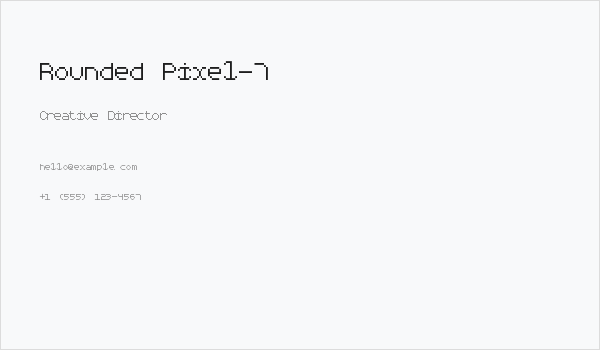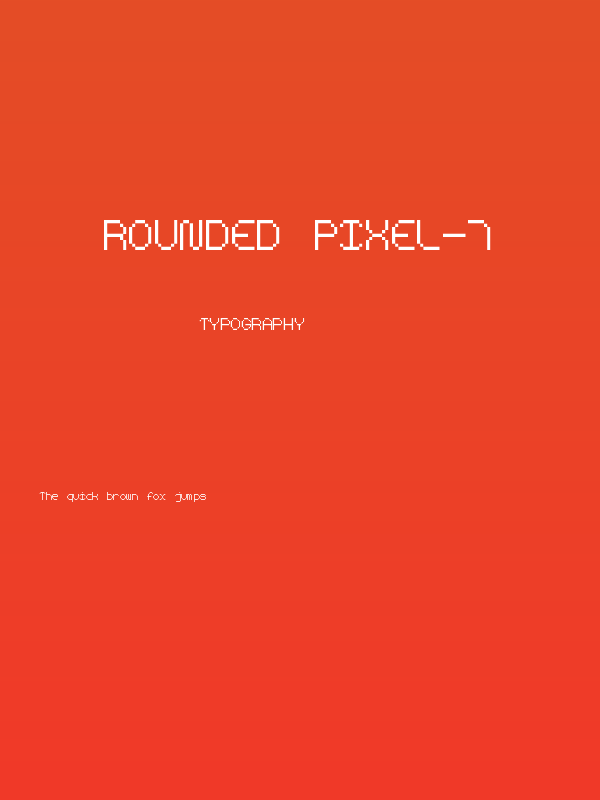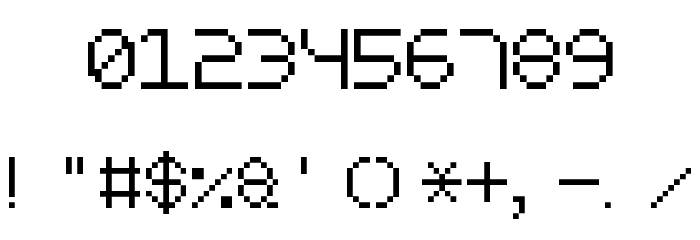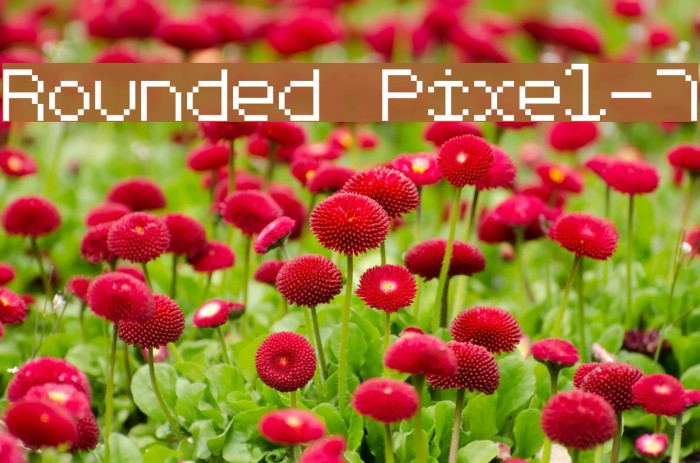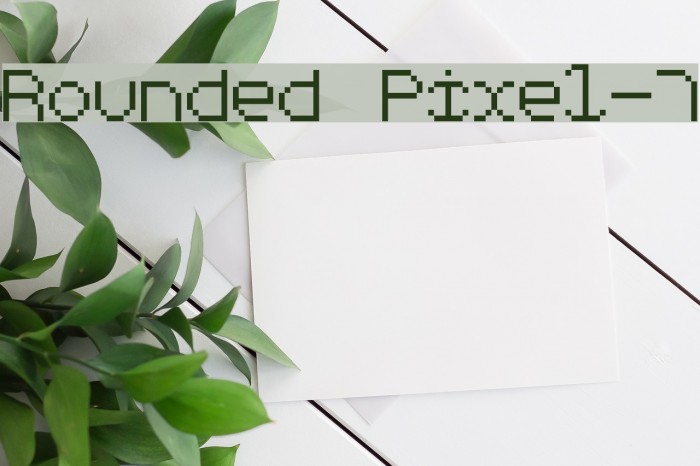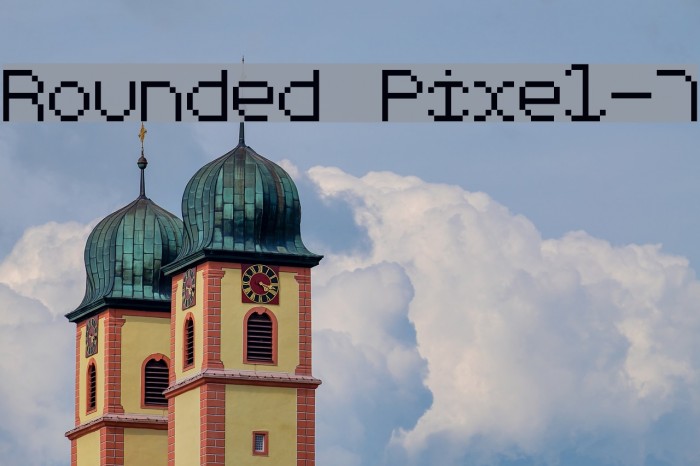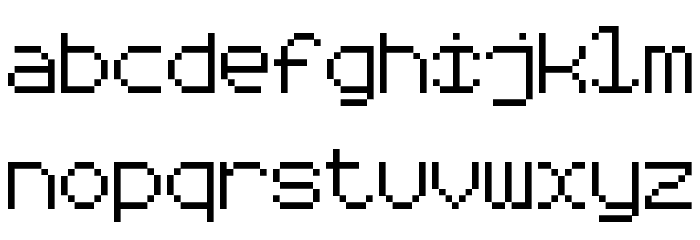
Rounded Pixel-7 Font
Rounded Pixel-7 Description
This font features a distinct pixelated style with rounded edges, reminiscent of classic 8-bit video game graphics. Each character is constructed with a grid-like precision, giving it a digital, retro appearance. The uppercase and lowercase letters maintain a consistent height, contributing to a uniform look. Numbers and special characters follow the same pixelated design, ensuring a cohesive aesthetic across all glyphs. The font's simplicity and geometric form make it highly legible, even at smaller sizes, while its nostalgic charm adds a playful touch to any design.
| Proposed Projects | Perfect for video game graphics, retro-themed posters, digital art projects, and any design requiring a nostalgic, pixelated look. |